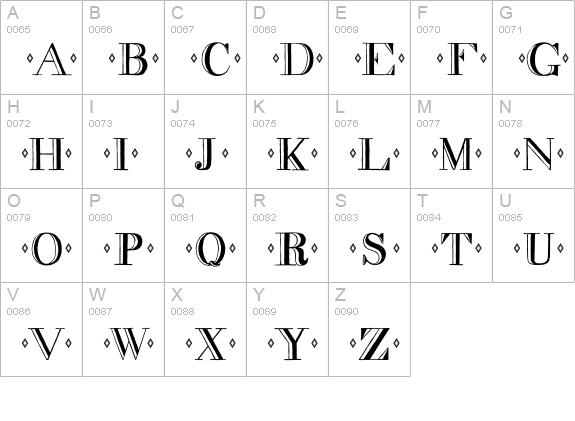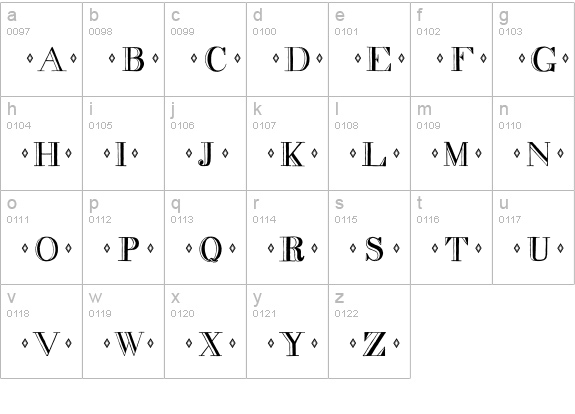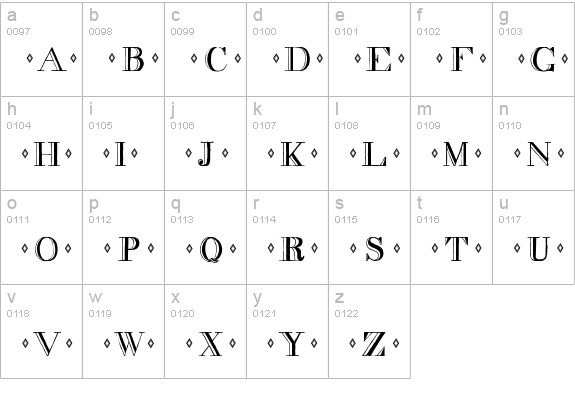
Decadence Font exudes an air of opulence and sophistication with its intricate details and elegant curves. This luxurious typeface is perfect for adding a touch of decadence to your projects, whether it be for invitations, branding, or editorial design. Its ornate design captures the essence of luxury and glamour, making it a standout choice for those seeking to make a statement. The Decadence Font is not only visually stunning but also incredibly versatile, offering a range of weights and styles to suit different design needs. Whether you're looking for a bold display font or a delicate script, Decadence has you covered. Best of all, Decadence Font is available for free download at FontsMarket.com, making it easily accessible to designers looking to elevate their creations with a touch of decadence. Don't miss out on this opportunity to add a touch of luxury to your designs - download Decadence Font today and bring your projects to the next level.